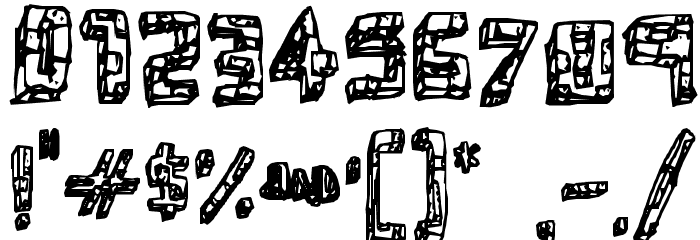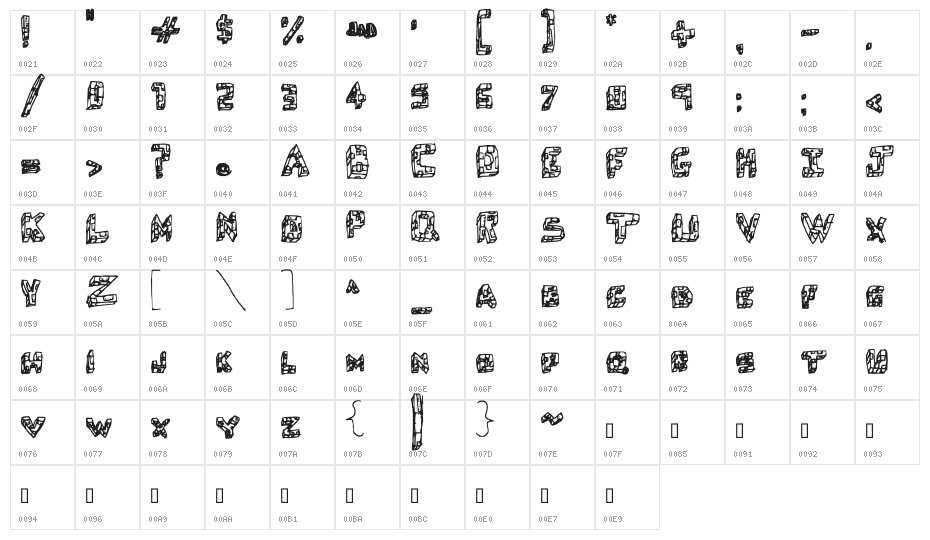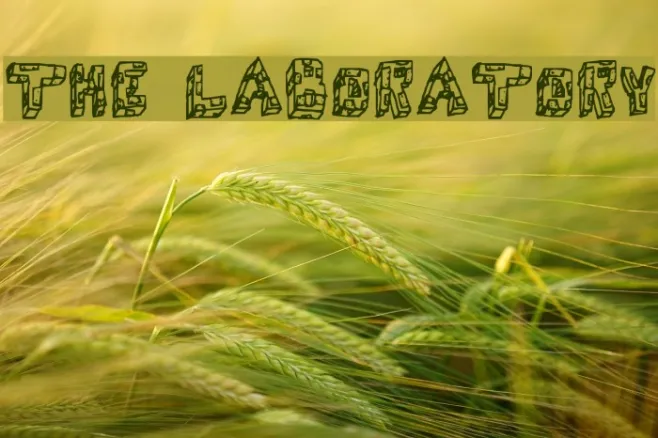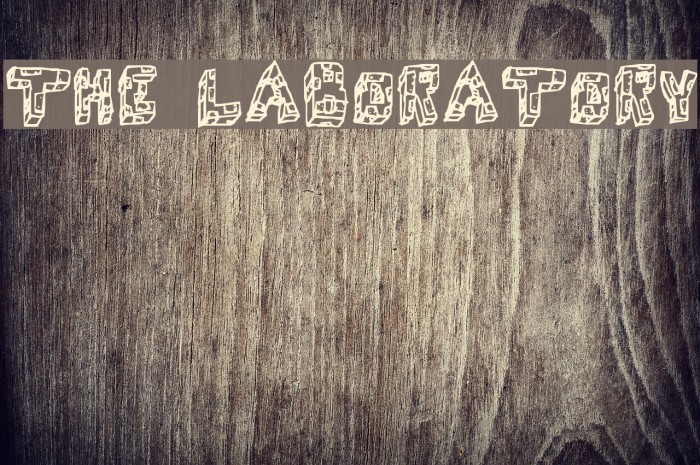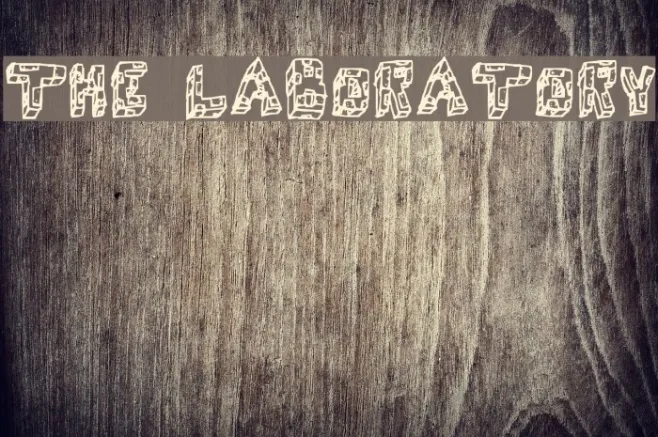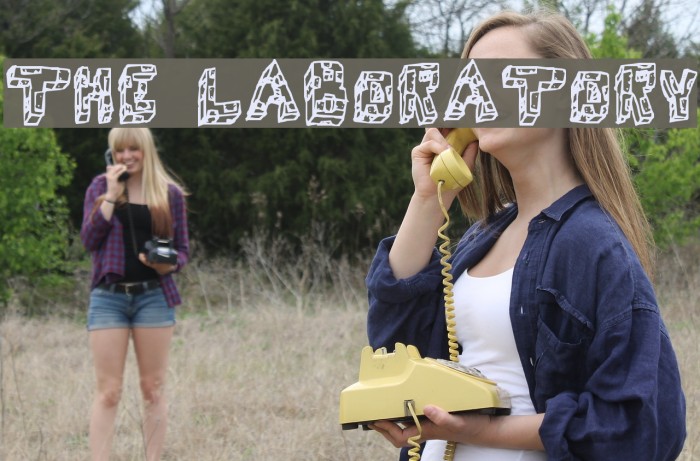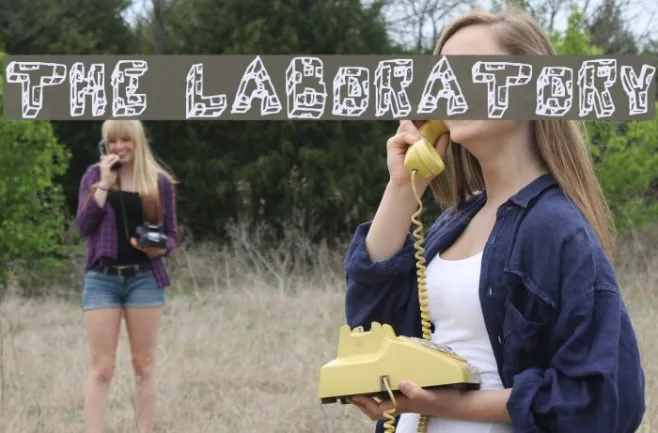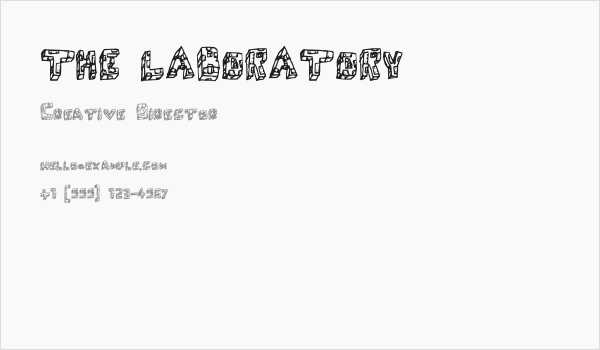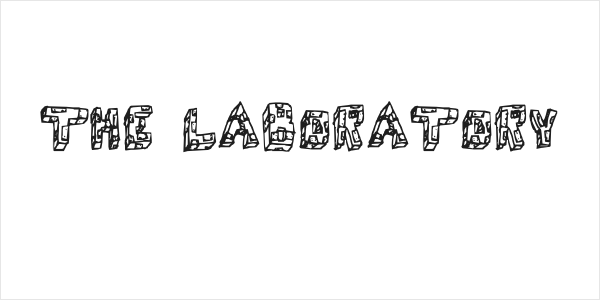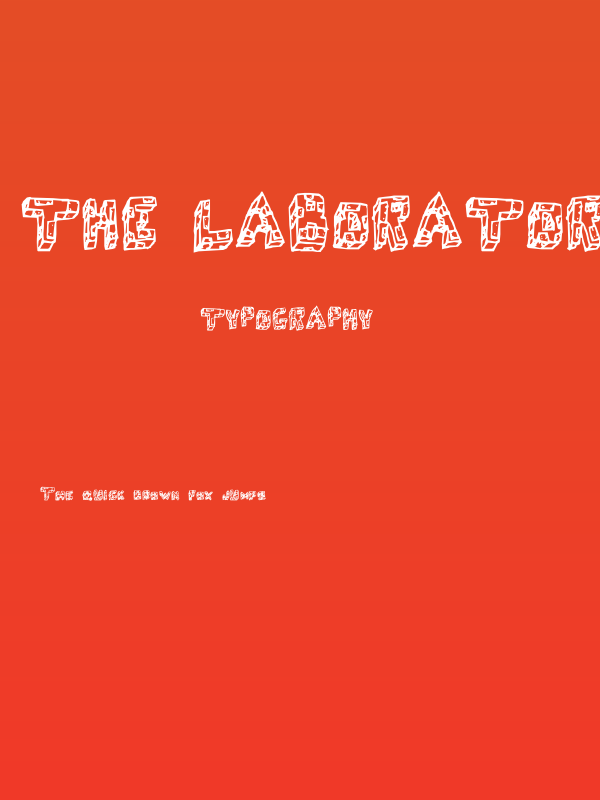
THE LABORATORY Font
THE LABORATORY Description
This font features a unique, hand-drawn style with a playful and chaotic appearance. Each character is filled with irregular patterns and shapes, giving it a textured and dynamic look. The letters are bold and have a slightly uneven baseline, enhancing the whimsical and artistic feel. The font includes both uppercase and lowercase letters, numbers, and a variety of special characters, all maintaining the same distinctive style. The overall design is reminiscent of doodles or graffiti, making it stand out with its creative and unconventional aesthetic.
| Proposed Projects | Ideal for creative projects such as posters, album covers, children's books, or any design requiring a fun and artistic touch. |